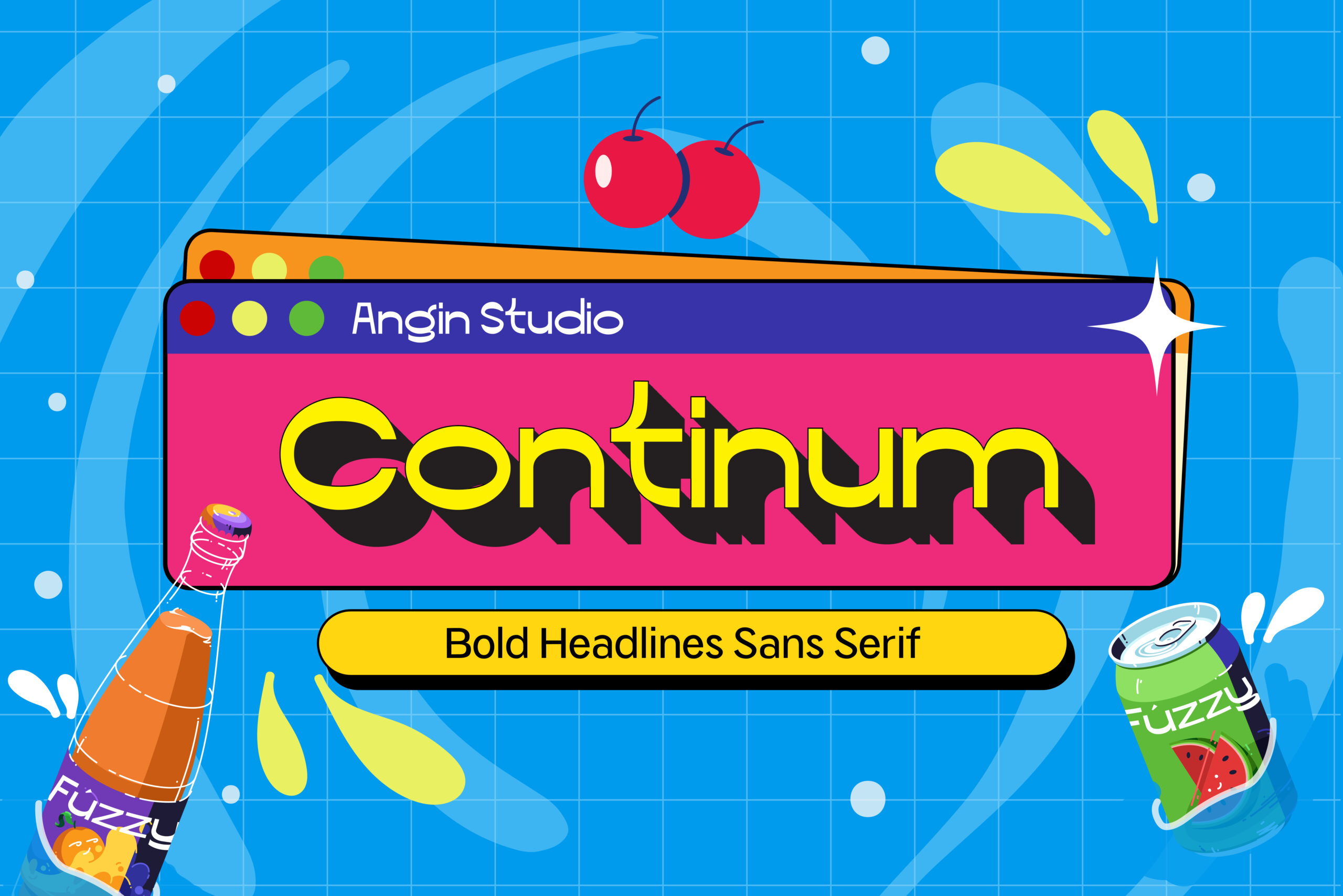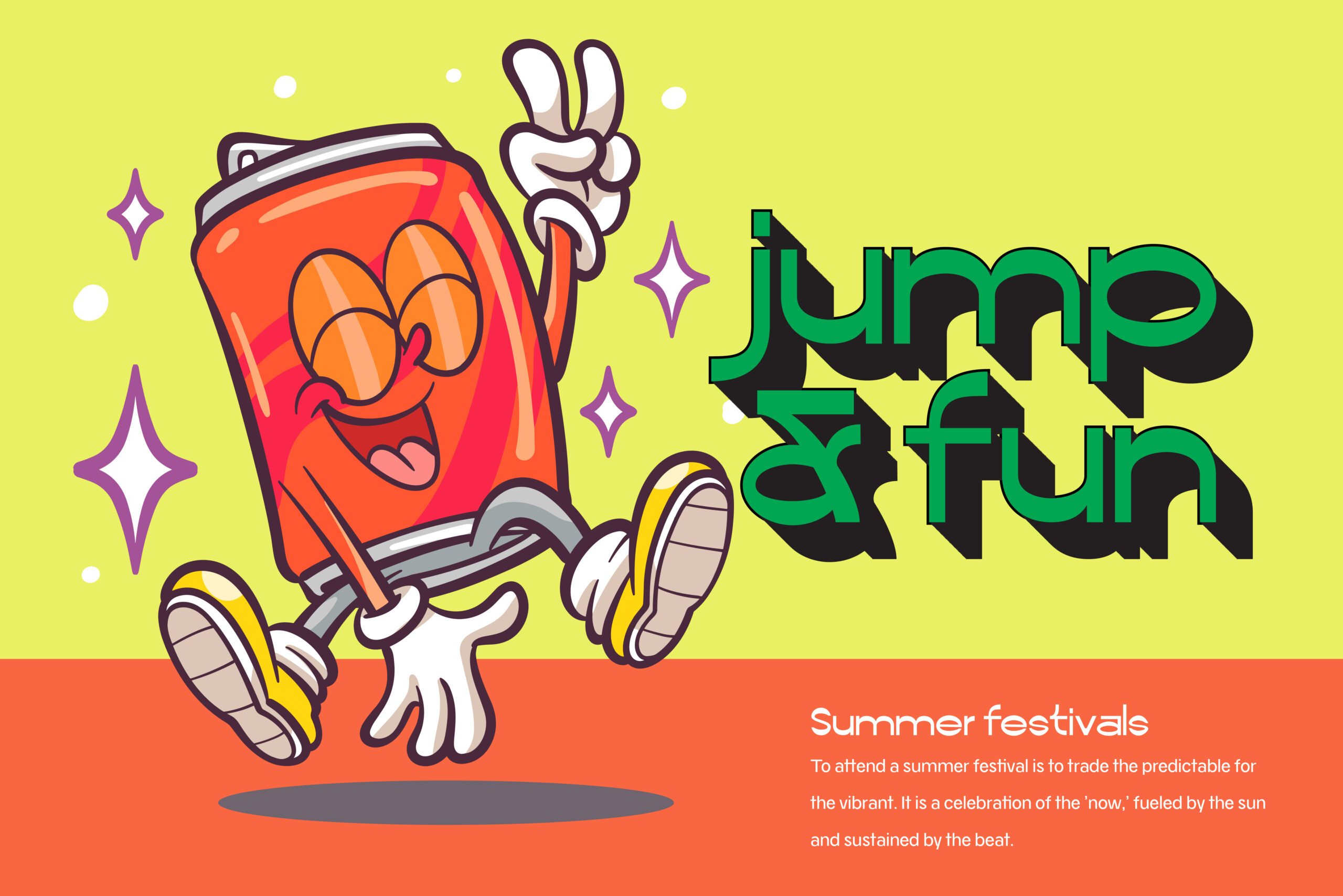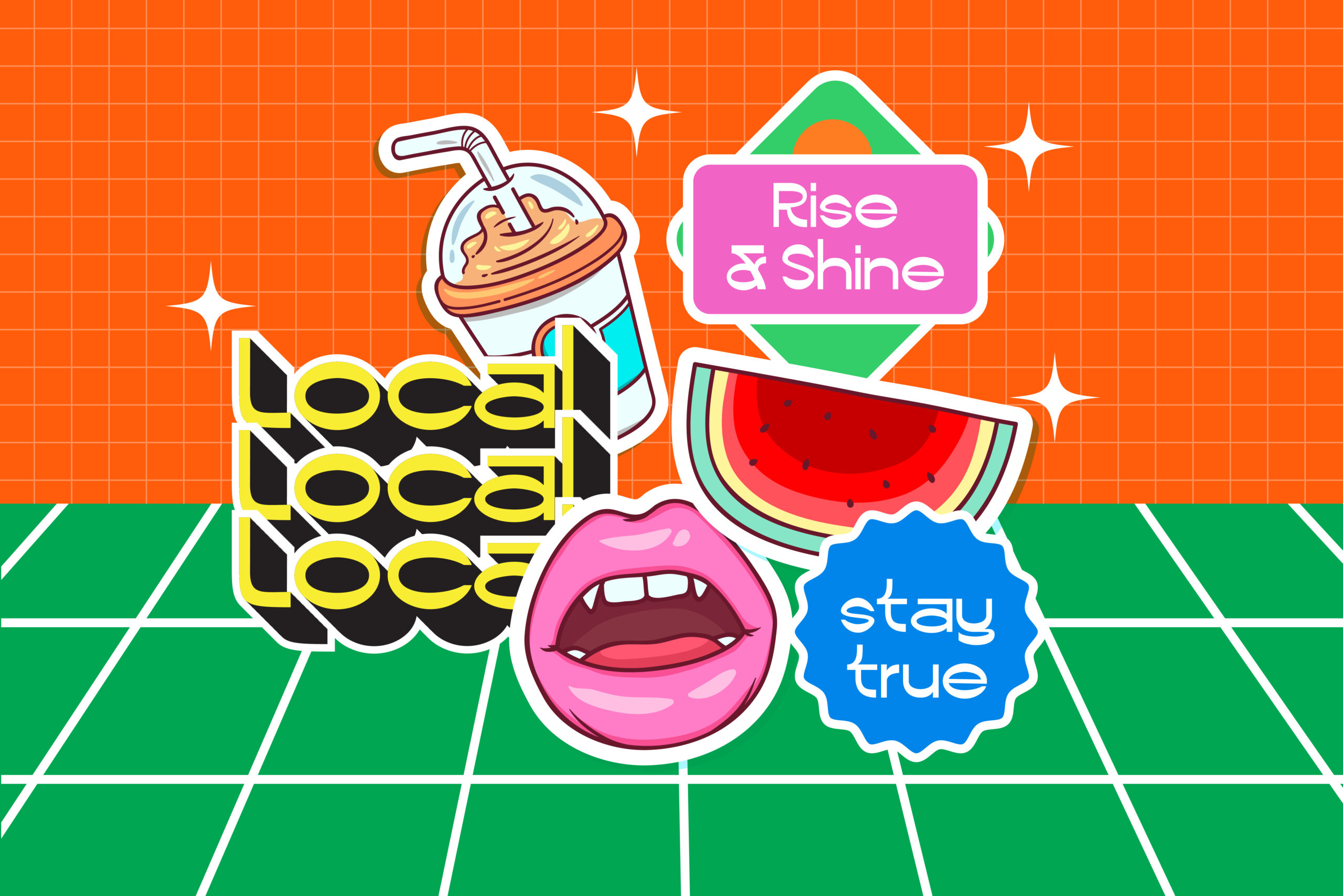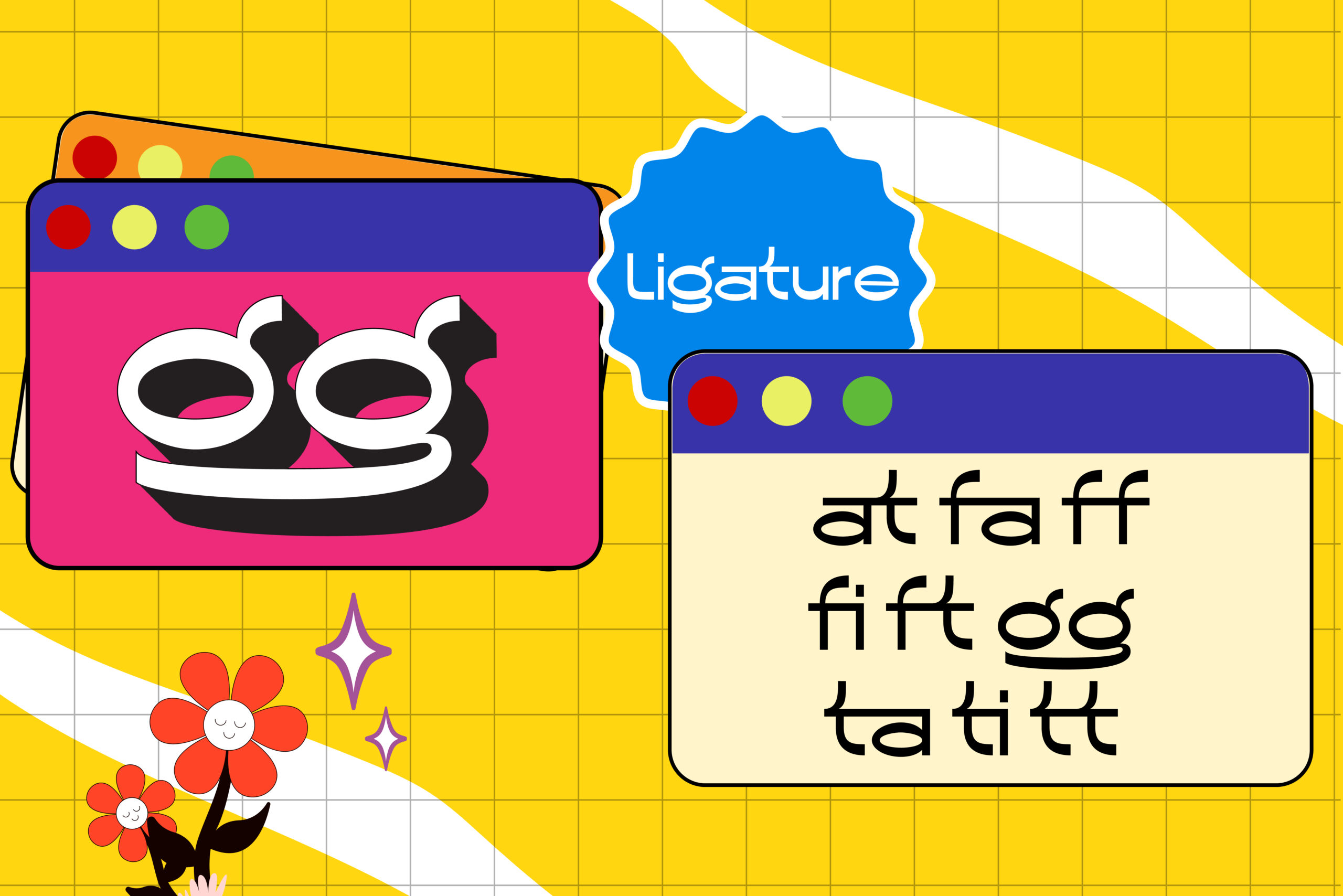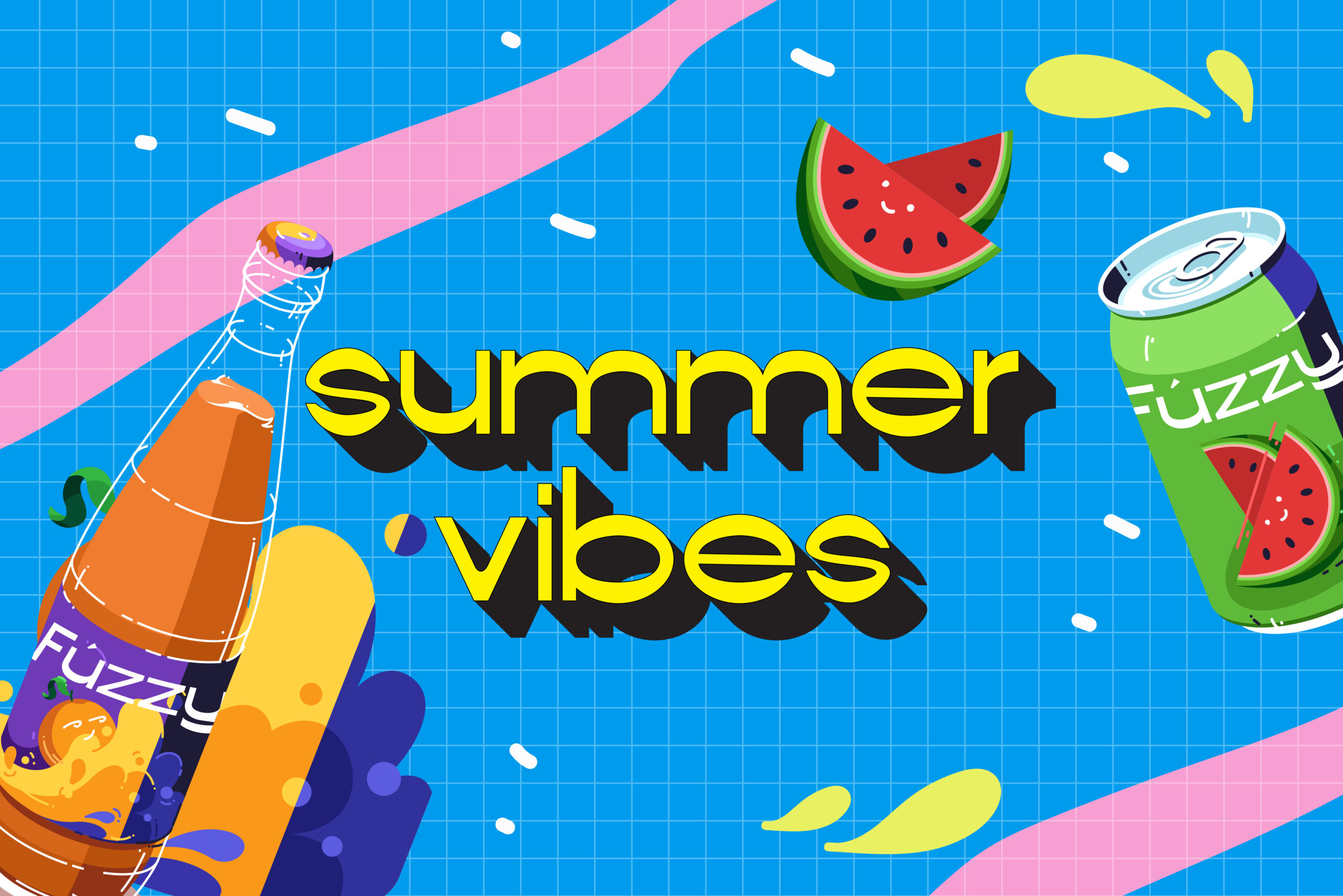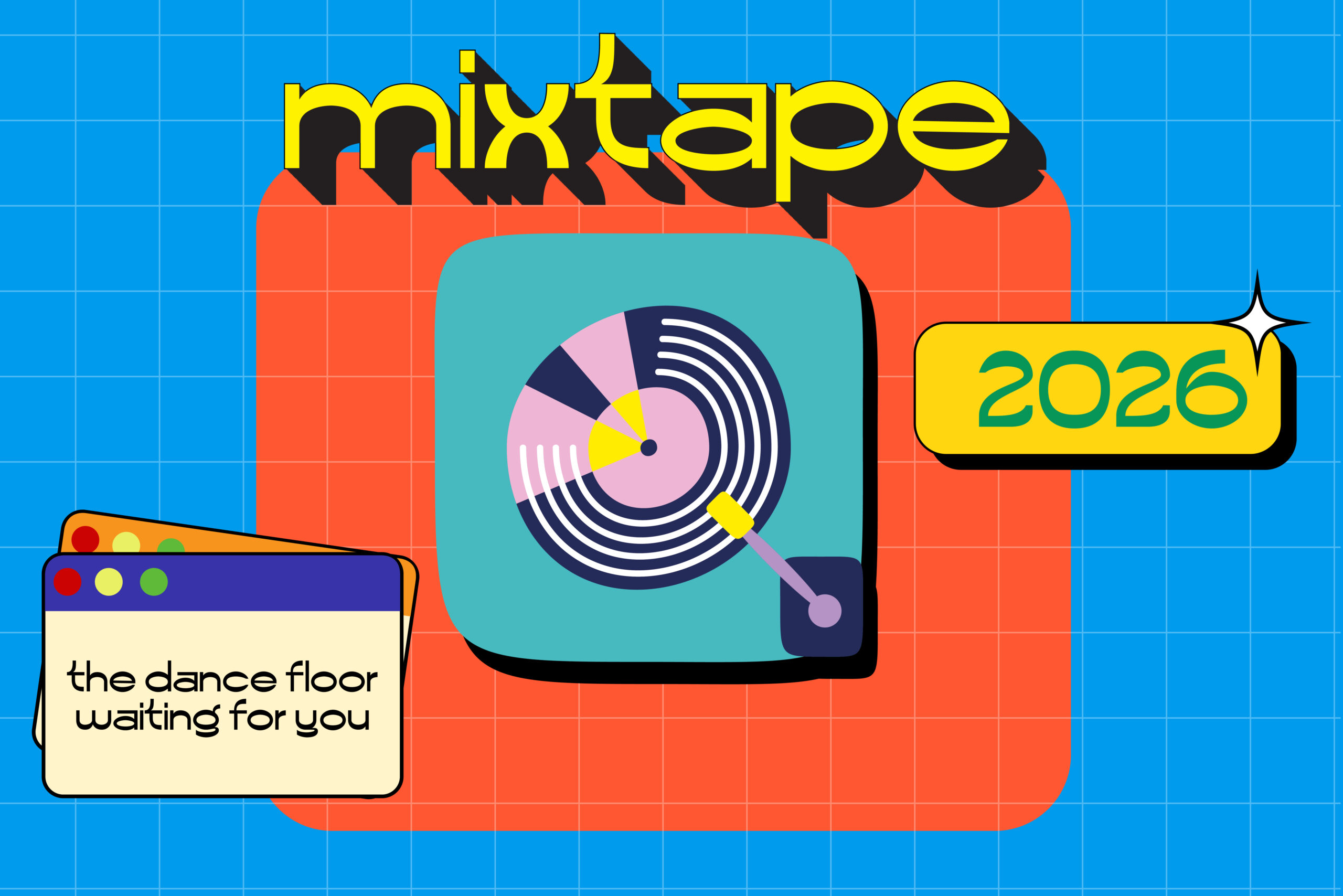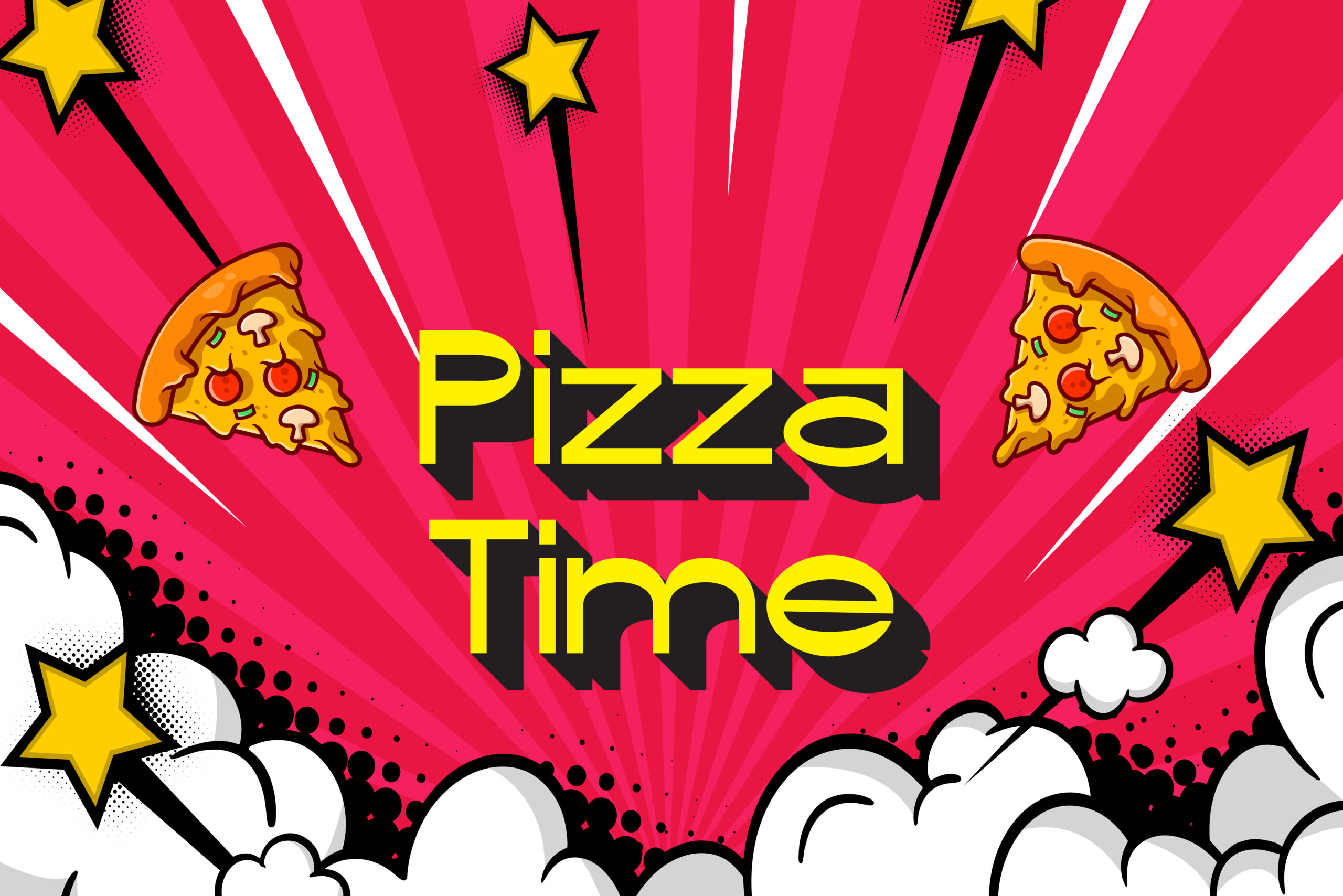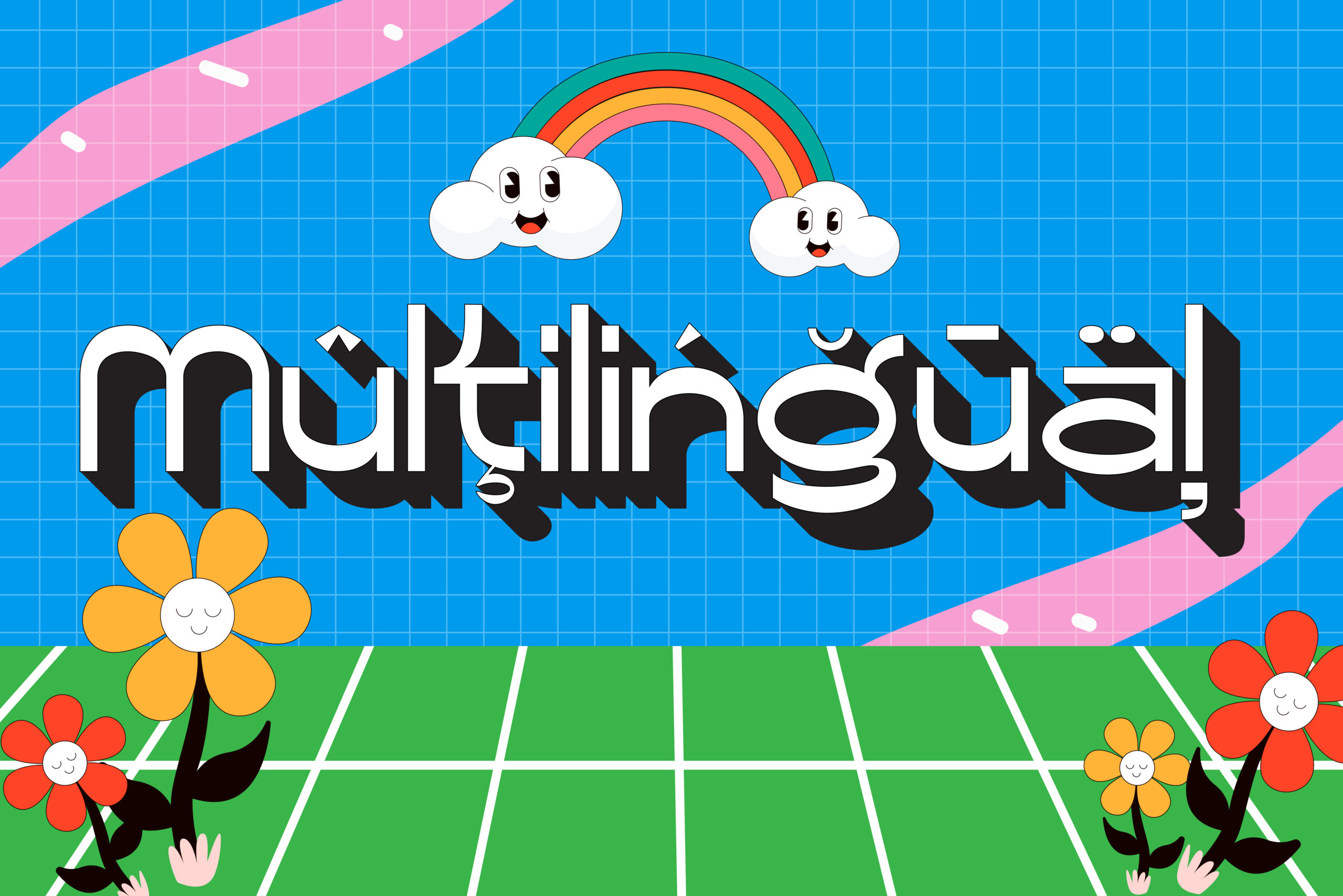
Turn up the heat on your designs with Continum. A bold, high impact display sans serif built for sun drenched projects and striking visuals. Packed with personality and confident vibe, this font captures the essence of endless summer days.
Continum has a unique anatomy, We’ve twisted the rules of traditional sans serifs to introduce custom letterforms, unexpected curves, and distinct geometric quirks that guarantee your text stands out.
Continum also have a ligature feature to not only enhanced the legibility and readability of the letters but also enhanced the visual appearance.
Not only that, Continum has a multilingual support for 90 language as listed below :
Afrikaans, Albanian, Asu, Basque, Bemba, Bena, Breton, Catalan, Chiga, Colognian, Cornish, Croatian, Czech, Danish, Dutch, Embu, English ,Estonian, Faroese, Filipino, Finnish, French, Friulian, Galician, German, Gusii, Hungarian, Icelandic, Indonesian, Irish, Italian, Kabuverdianu, Kalenjin, Kamba, Kikuyu, Kinyarwanda, Latvian, Lithuanian, Lower Sorbian, Luo, Luxembourgish, Luyia, Machame, Makhuwa-Meetto, Makonde, Malagasy, Maltese, Manx, Meru, Morisyen, North Ndebele, Norwegian, Bokmål Norwegian,Nynorsk, Nyankole, Oromo, Polish, Portuguese, Quechua, Romanian, Romansh, Rombo, Rundi, Rwa, Samburu, Sango, Sangu, Scottish Gaelic, Sena, Serbian, Shambala, Shona, Slovak, Slovenian, Soga, Somali, Spanish, Swahili, Swedish, Swiss German, Taita, Teso, Turkish, Upper Sorbian, Uzbek (Latin), Volapük, Vunjo, Walser, Welsh, Western Frisian, Zulu.